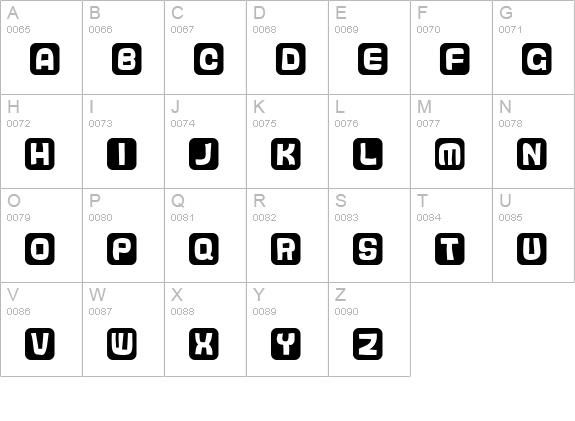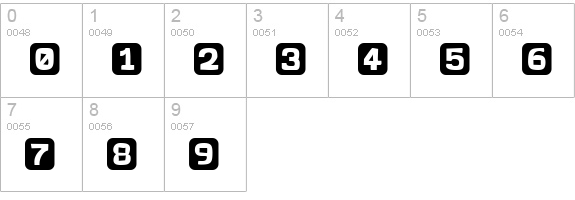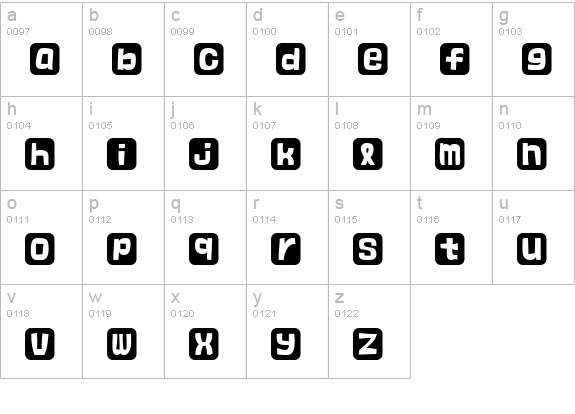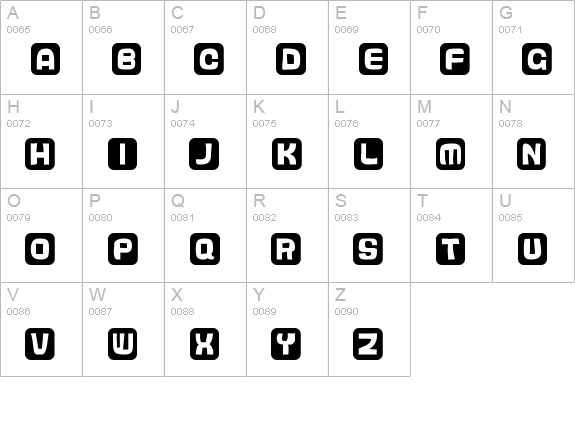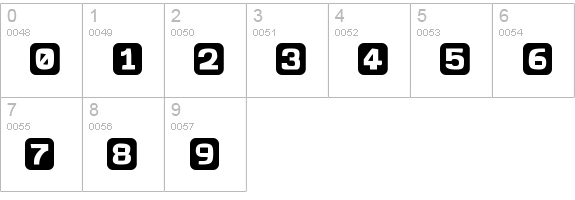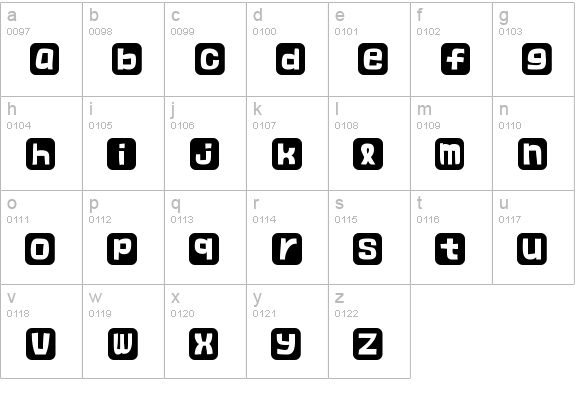
Hanko Font is a stunning typeface that combines elegance and versatility, making it the perfect choice for any design project. With its clean lines and balanced proportions, this font brings a sense of sophistication to any text. One of the most remarkable features of Hanko Font is that it is available for free. Yes, you read that right! This exceptional font can be freely downloaded at FontsMarket.com, allowing designers, creatives, and typography enthusiasts to access its beauty without any cost. The creators of Hanko Font have truly outdone themselves by offering this incredible typeface for free. With its wide range of weights and styles, including regular, bold, italic, and more, Hanko Font gives you the freedom to explore endless design possibilities. Whether you're working on a branding project, a magazine layout, a website design, or any other creative endeavor, Hanko Font will elevate your work to new heights. Its timeless appeal and modern aesthetics make it suitable for both print and digital media, ensuring that your message stands out in any context. Don't miss out on the opportunity to enhance your design toolkit with this remarkable font. Download Hanko Font for free at FontsMarket.com and unlock a world of creative possibilities.